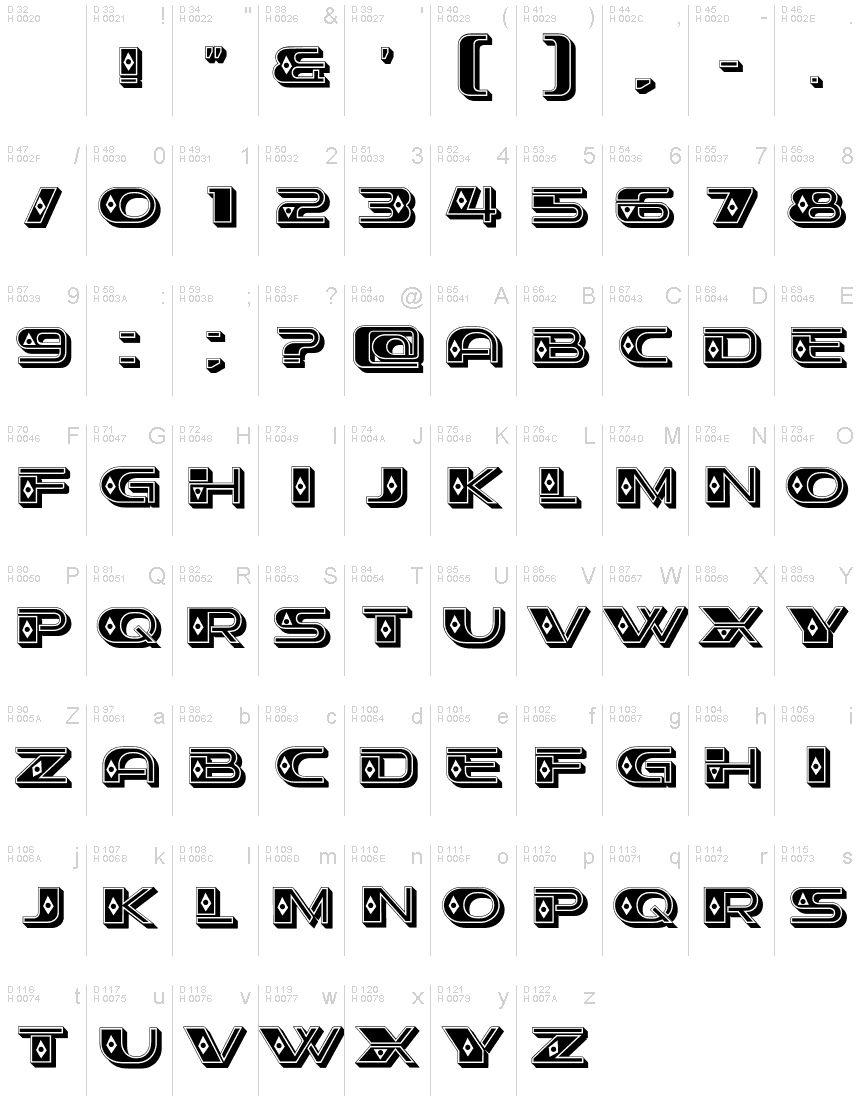
Stage Circus font is a 3d decorative typeface designed by Vladimir Nikolic.
It comes in Regular, Book, Circus, Destroy, Hollow, Oriental, Oriental Extruded, and Retro variants.